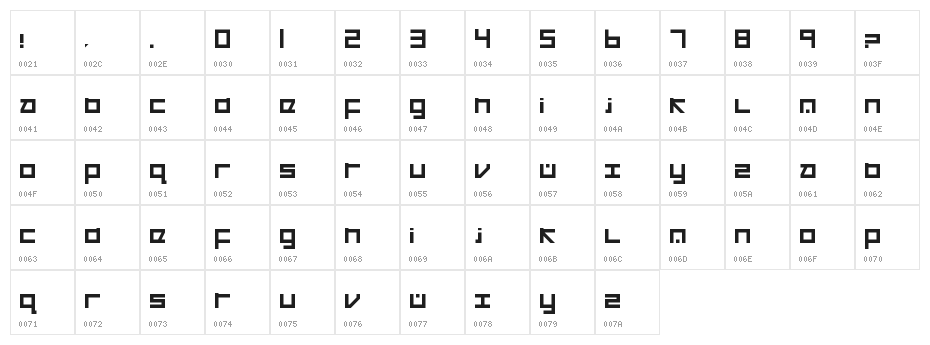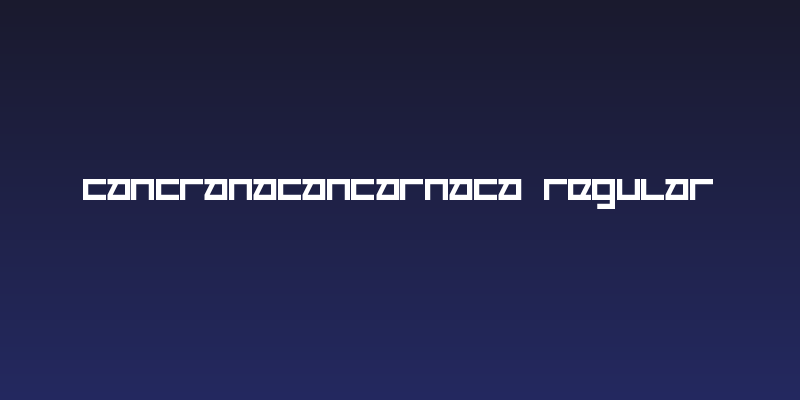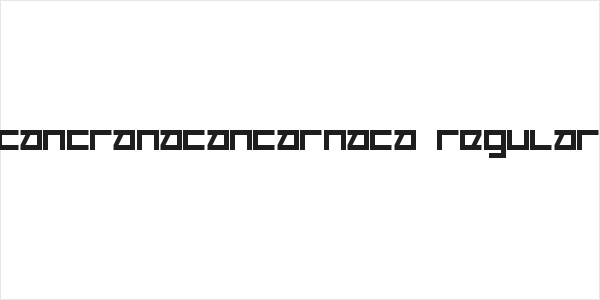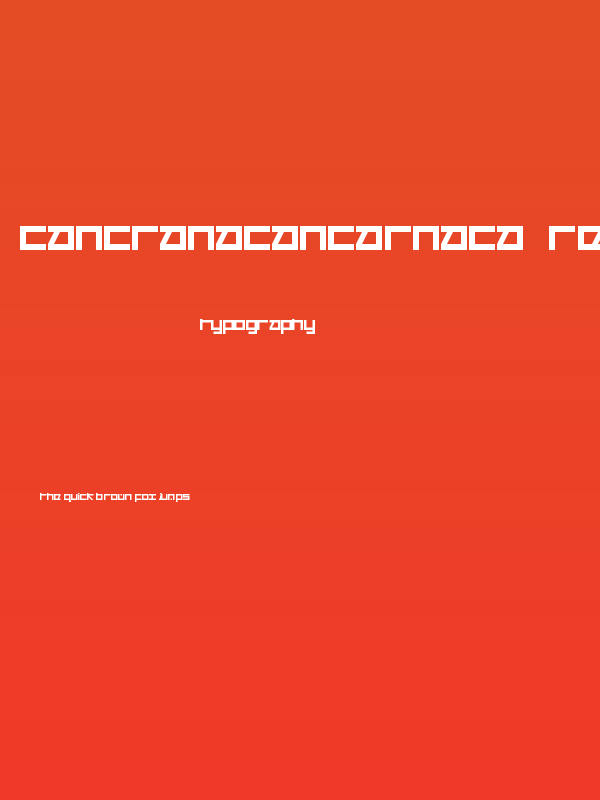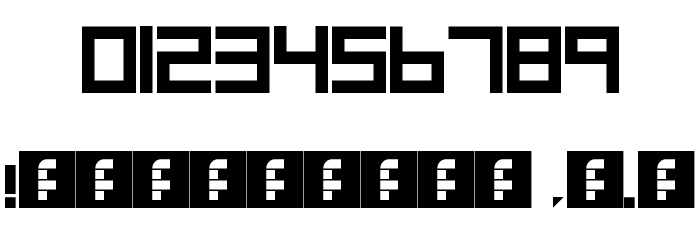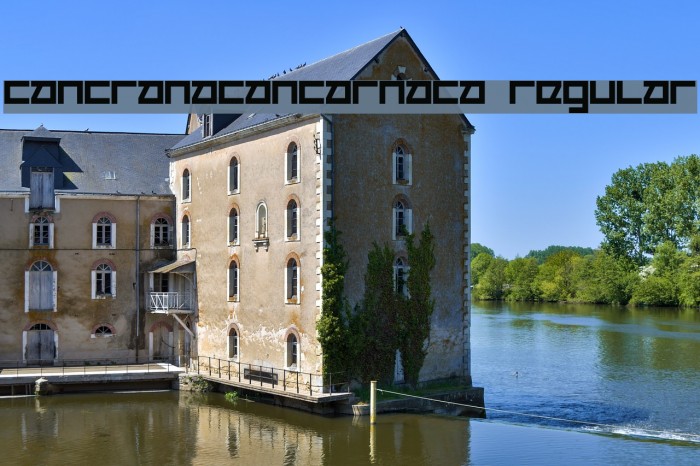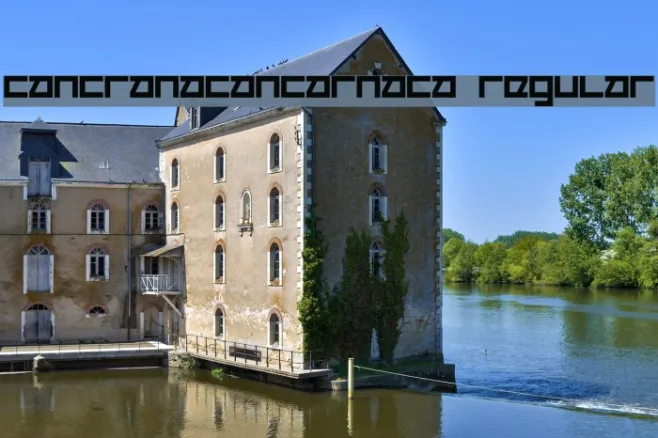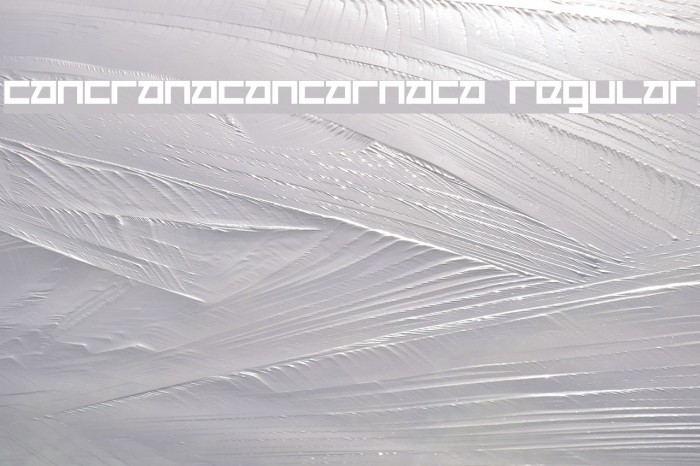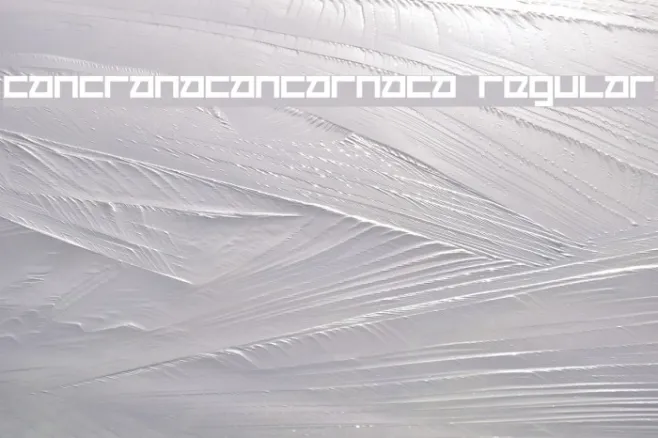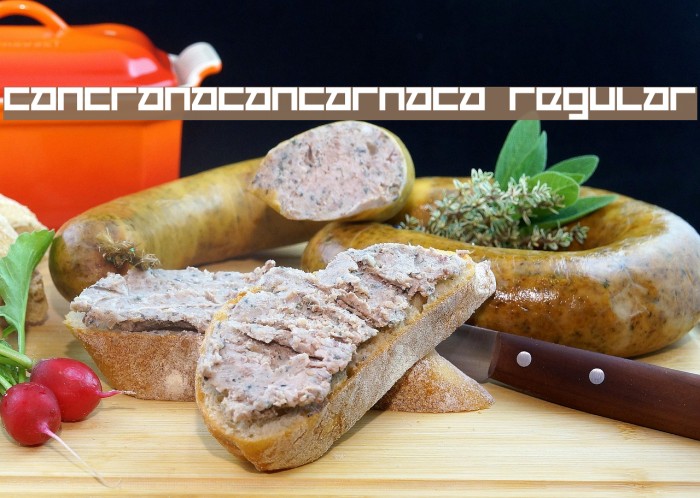
Cancranacancarnaca Regular Font
Cancranacancarnaca Regular Description
This font features a bold, geometric design with a distinctly modern and digital aesthetic. Each character is constructed with sharp angles and straight lines, creating a blocky and futuristic appearance. The uniformity in stroke width across all characters gives it a monospaced feel, although it is not strictly monospaced. The uppercase and lowercase letters share similar structural elements, enhancing the cohesive look of the typeface. Numbers and special characters maintain the same angular style, ensuring consistency throughout. This font is ideal for projects that require a strong, impactful visual presence.